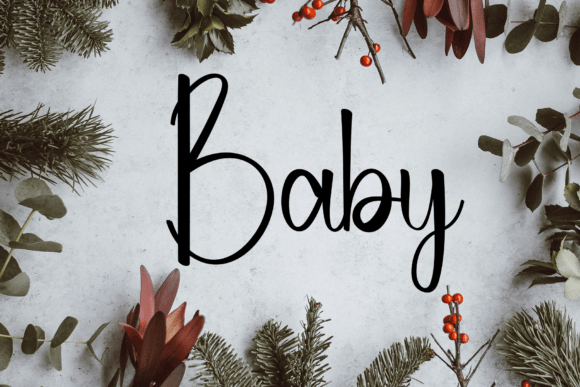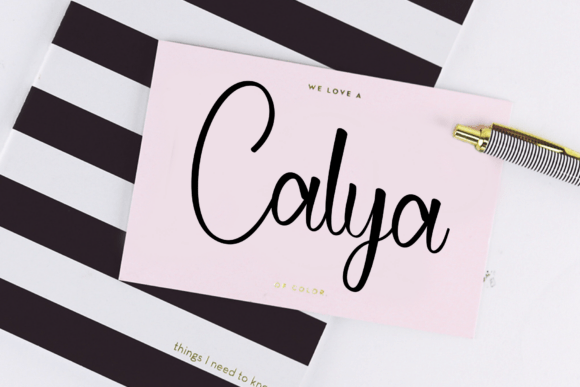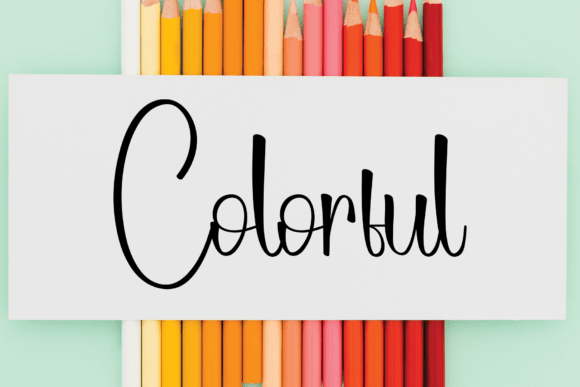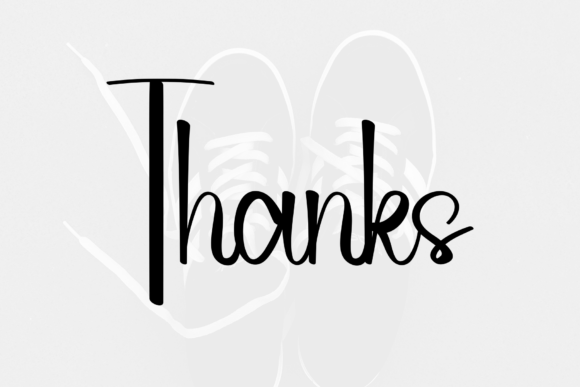
Introducing Autism February Font: A Sweet and Beautiful Handwritten Delight
Are you a designer or crafter looking for a unique and captivating font to add a personal touch to your projects? Look no further than Autism February Font, a sweet and beautiful handwritten font that is sure to charm. Featuring characters that dance along the baseline, this font is perfect for adding a cozy accent to any design project you wish to create.
What Makes Autism February Font So Special?
Autism February Font is a one-of-a-kind handwritten font that boasts a distinctive and endearing quality. Its characters are carefully crafted to dance along the baseline, creating a sense of movement and playfulness that is sure to capture the attention of your audience. Whether you’re working on a branding project, a craft design, or a digital creation, this font is guaranteed to add a touch of warmth and personality to your work.
Key Features of Autism February Font
- Handwritten with love: Autism February Font is a genuine handwritten font, created with care and attention to detail to ensure a personal and unique feel.
- Dancing characters: The font’s characters are designed to dance along the baseline, adding a playful and whimsical touch to your designs.
- Coziness guaranteed: With Autism February Font, you can add a cozy accent to any design project, making it perfect for crafters, designers, and creatives.
- Versatile: This font is suitable for a wide range of design projects, from branding and advertising to digital creations and crafts.
Autism February Font is an excellent choice for designers and crafters who want to add a personal touch to their projects. Whether you’re creating:
- Branding materials: Use Autism February Font to create unique and memorable logos, business cards, and letterheads.
- Craft designs: Add a touch of personality to your craft projects, such as greeting cards, invitations, and DIY decorations.
- Digital creations: Use this font to create engaging and eye-catching digital content, including social media graphics, blog posts, and email newsletters.
Tips for Using Autism February Font
To get the most out of Autism February Font, here are a few tips to keep in mind:
- Pair with contrasting fonts: Combine Autism February Font with a contrasting font to create visual interest and hierarchy in your designs.
- Experiment with colors: Try out different color schemes to find the perfect match for your design and brand.
- Play with sizes: Use Autism February Font in various sizes to create emphasis and add visual interest to your designs.